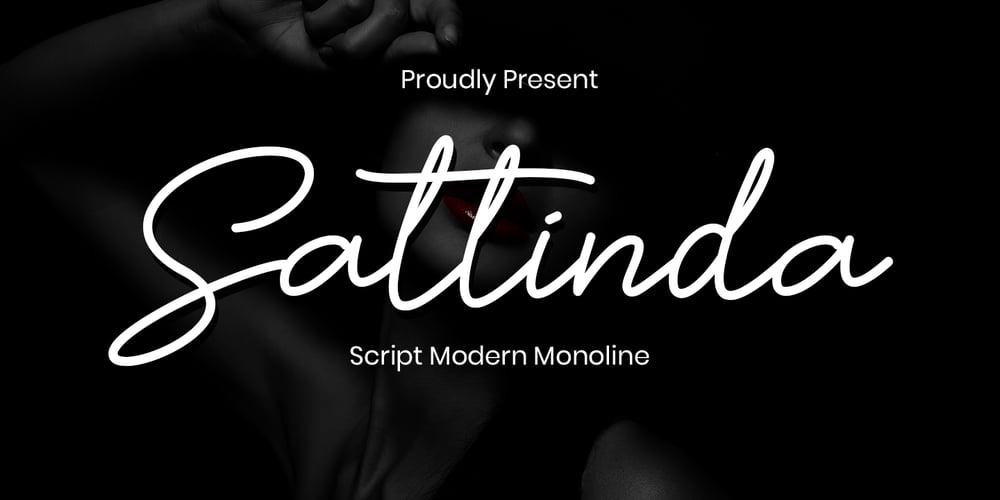
Sattinda Font Family was designed by Mohamad Candirah and published by MC Creative. Sattinda contains 1 styles and family package options. Sattinda is a thin and elegant handwritten font. It features a cute and joyful style that will take your designs to the next level! perfect for branding projects, logo, wedding designs, social media posts, advertisements, product packaging, product designs, label, photography, watermark, invitation, stationery and any projects that need handwriting taste. What’s Included : Standard Glyphs Ligature Works on PC & Mac Simple installations Accessible in the Adobe Illustrator, Adobe Photoshop, Adobe InDesign, even work on Microsoft Word. PUA Encoded Characters – Fully accessible without additional design software. Fonts include multilingual support for; ä ö ü Ä Ö Ü ß ¿ ¡